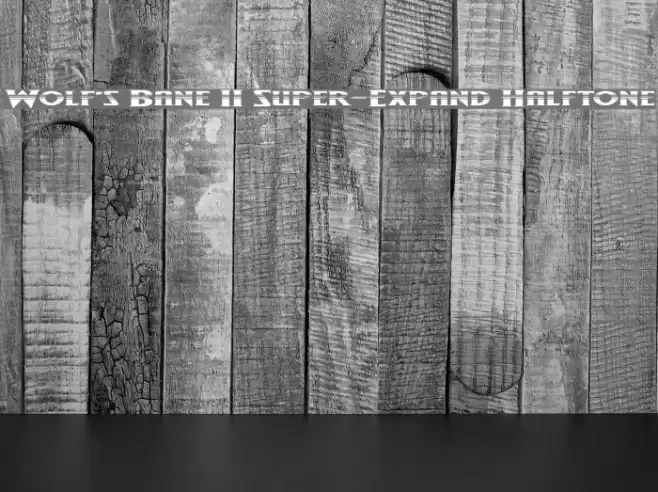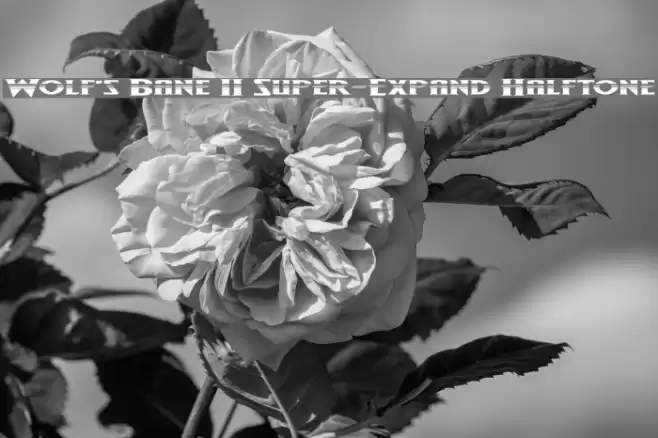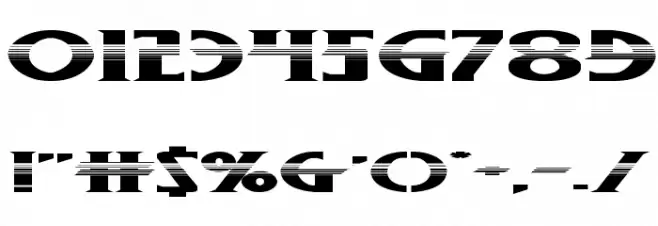
Wolf's Bane II Super-Expand Halftone Font
Wolf's Bane II Super-Expand Halftone Description
This font features a bold and striking design with a halftone effect that creates a sense of movement and energy. The characters are wide and expansive, with horizontal lines cutting through each letter, adding a dynamic and modern touch. The uppercase and lowercase letters maintain a consistent style, with sharp edges and a futuristic appearance. The numbers and special characters follow the same design principles, ensuring uniformity across all glyphs. This font is ideal for making a bold statement and capturing attention with its unique and eye-catching style.
A bold, halftone-effect font with a modern and dynamic style from Retro fonts.
- Proposed Projects: Ideal for posters, headlines, branding, and any project requiring a bold and modern aesthetic.
- Width: Expanded